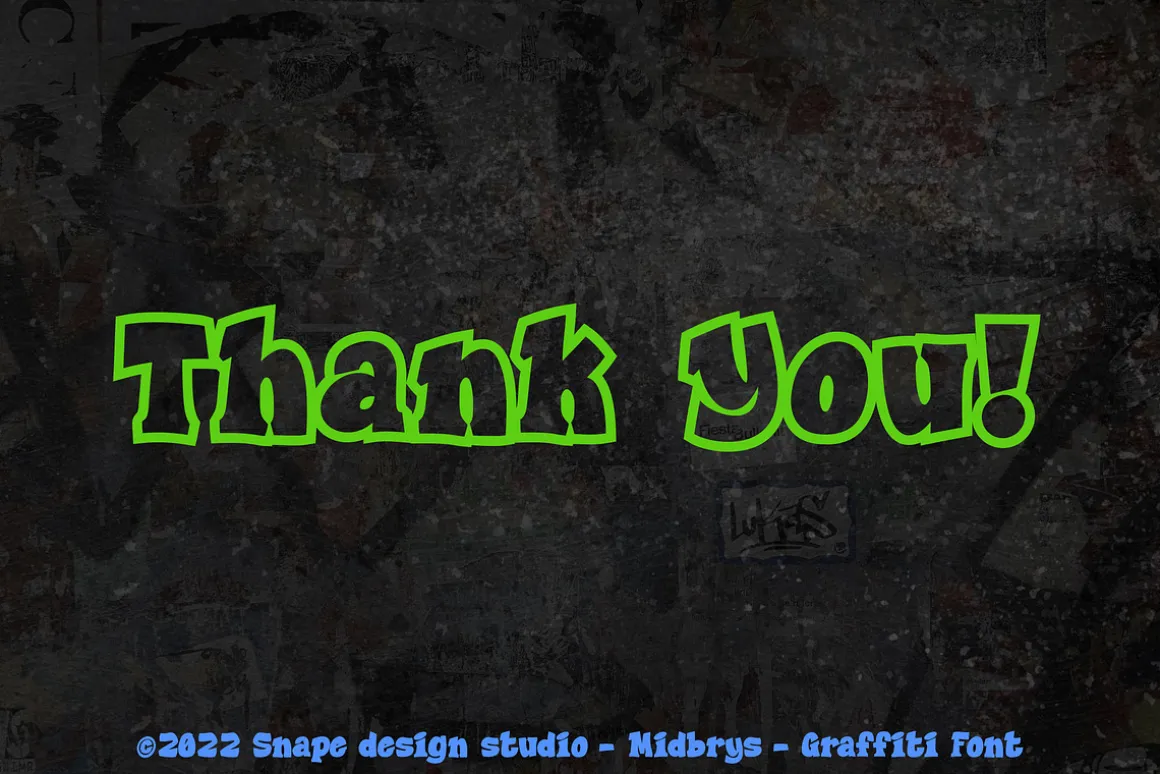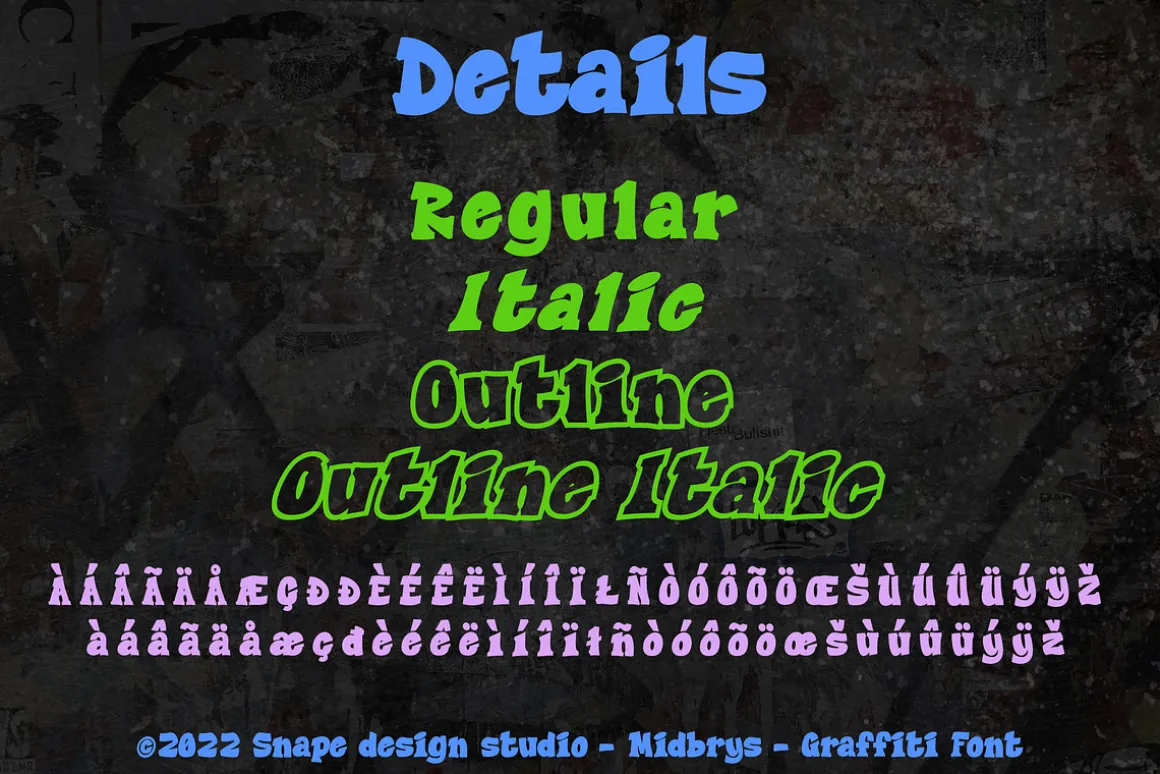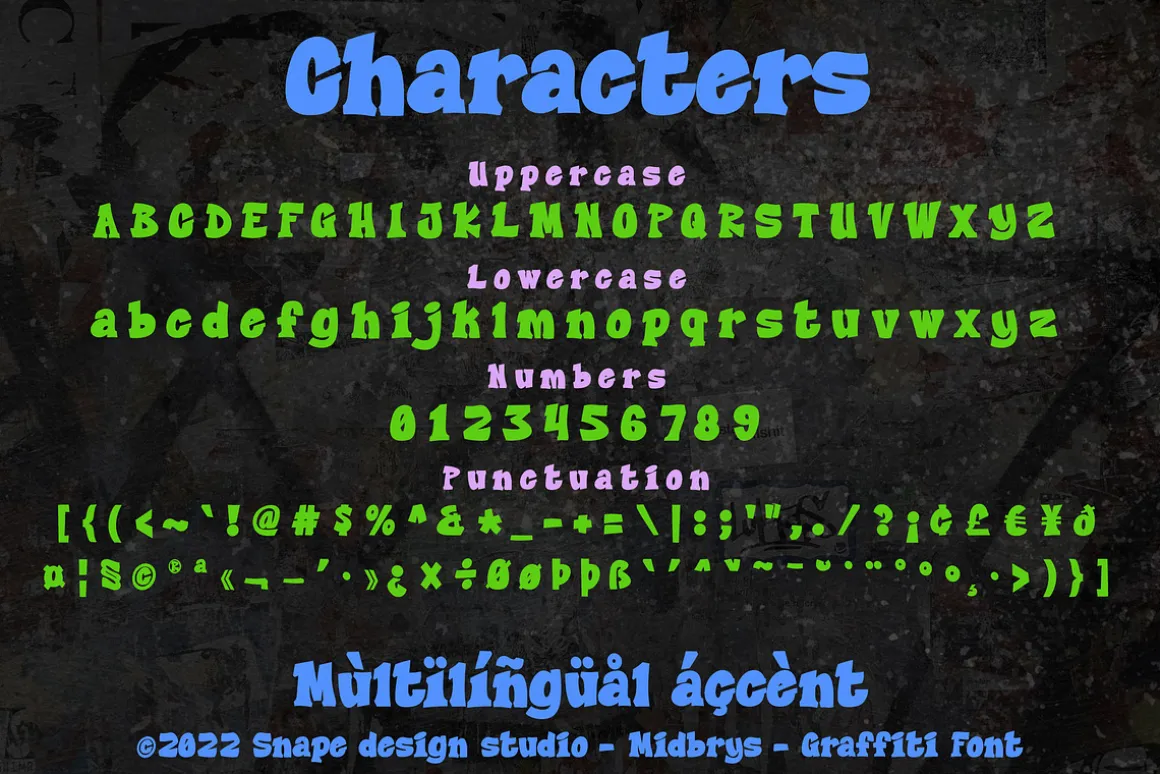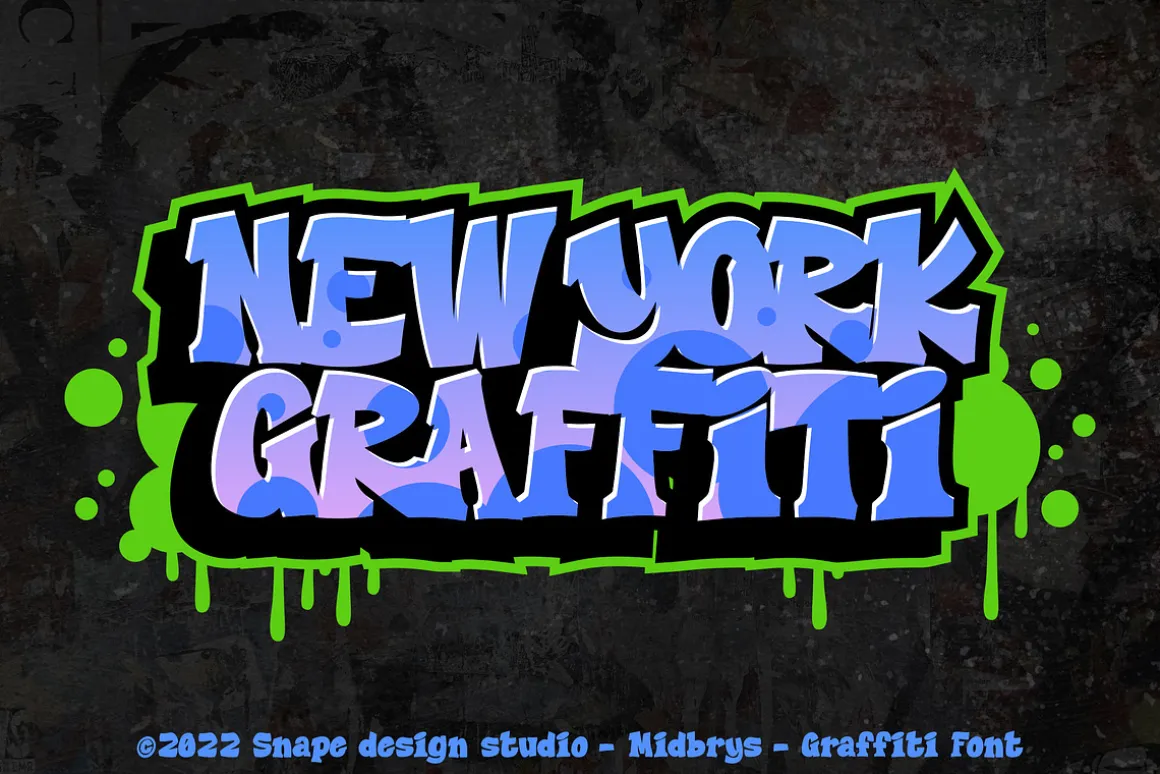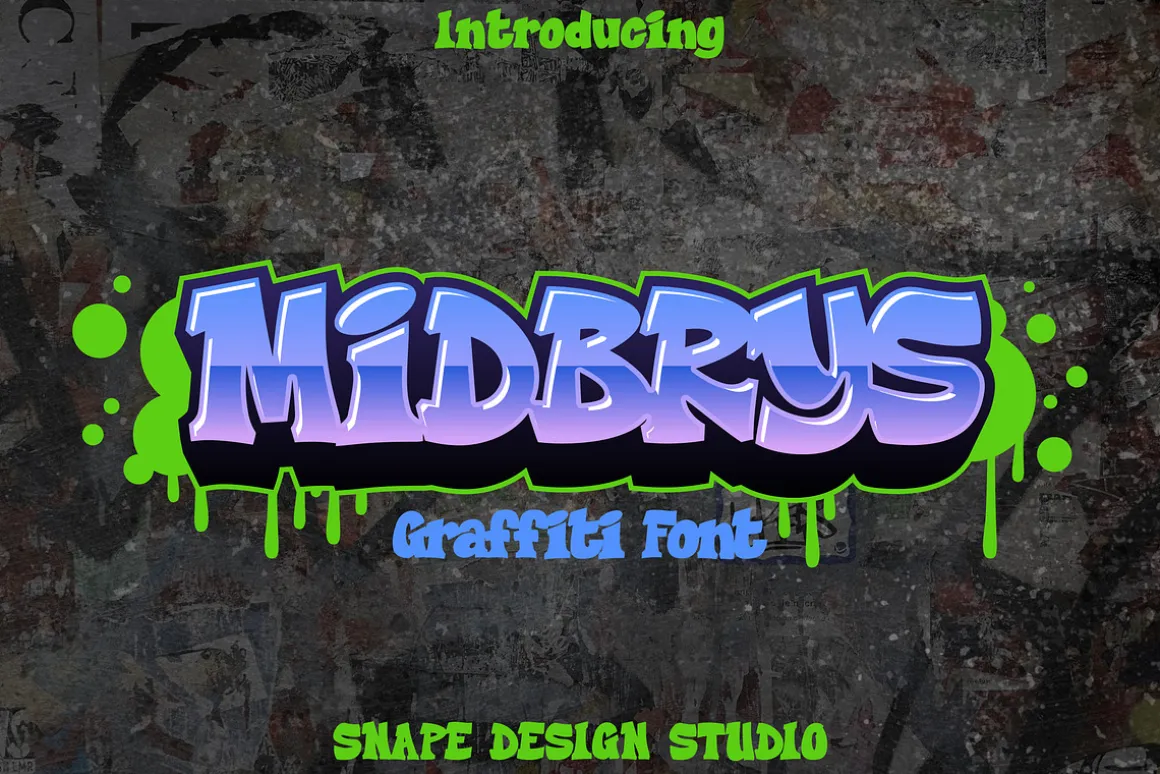
MIDBRYS is a display font inspired by typical street art graffiti, suitable for your design related to it.Also suitable for movie, documenter, film, logo, poster, game, book cover, headlines, title and many more projects. Add this font to your creative ideas and notice how it will make them stand out!
FEATURES :
UppercaseLowercaseNumberPunctuationMultilingual